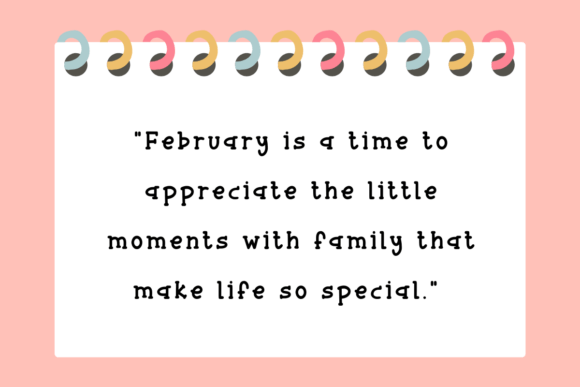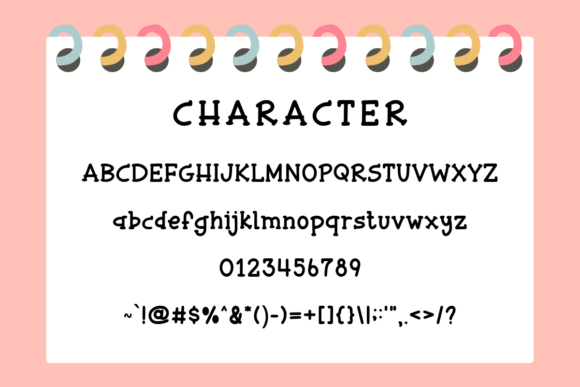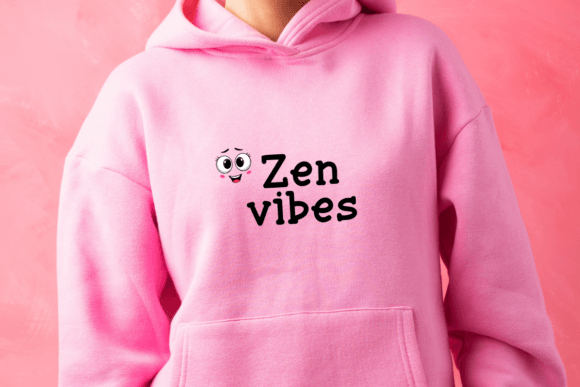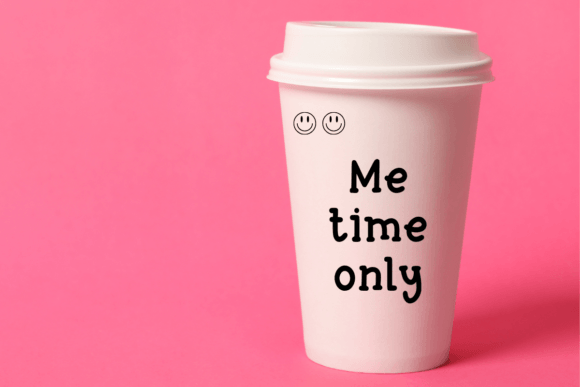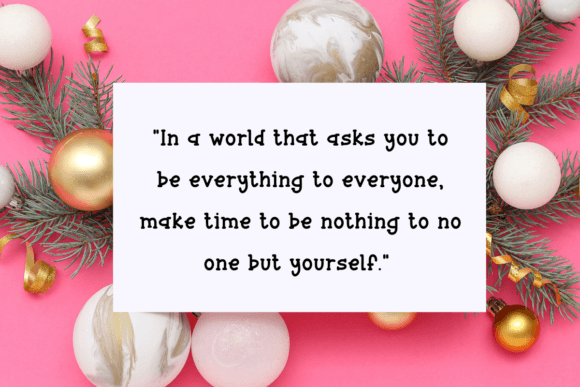
Introduction to Family February Font
Have you ever been working on a creative project, pouring your heart and soul into it, only to realize you’re missing that one crucial element to make it truly shine? For many designers, this moment is all too familiar. But what if you could find the perfect font to elevate your project and make it stand out from the crowd?
That’s where the Family February Font comes in – a clean and modern typeface that exudes a friendly feel. Its smooth, simple letters make it incredibly easy to read, making it an ideal choice for logos, posters, or social media designs. Whether you’re working on a free download or a paid project, this font adds a stylish and welcoming touch that’s sure to leave a lasting impression.
Key Features of Family February Font
- Unique, hand-drawn style with a touch of whimsy and playfulness, perfect for adding a personal touch to designs
- Perfect for use in a variety of creative projects, from digital art to print materials, and everything in between
Honest Review: Family February Font
I recently had the chance to work with the Family February Font, and I’m excited to share my thoughts with you. Overall, I found it to be a great addition to my design resources.
- High-quality font: The Family February Font is clear, crisp, and easy to read, making it perfect for any creative project.
- Limited character set: The Family February Font only includes a limited character set, which may not be suitable for projects requiring a full range of characters.
- Not suitable for large text: Due to its delicate nature, I wouldn’t recommend using the Family February Font for large blocks of text.
Overall, I’m impressed with the Family February Font and would recommend it for any design project where a high-quality, free font is needed. It’s a great addition to any designer’s resource library.
Family February Font is a versatile design resource that can be used in a variety of creative projects, including:
- Presentation slides
- Brochures
- Logos
Q: Is the Family February Font a high-quality design resource?
Yes, the Family February Font is a high-quality design resource, carefully crafted to provide a unique and stylish look for your creative projects. With its elegant and modern design, it’s perfect for a wide range of applications, from branding and marketing materials to digital products and print materials.